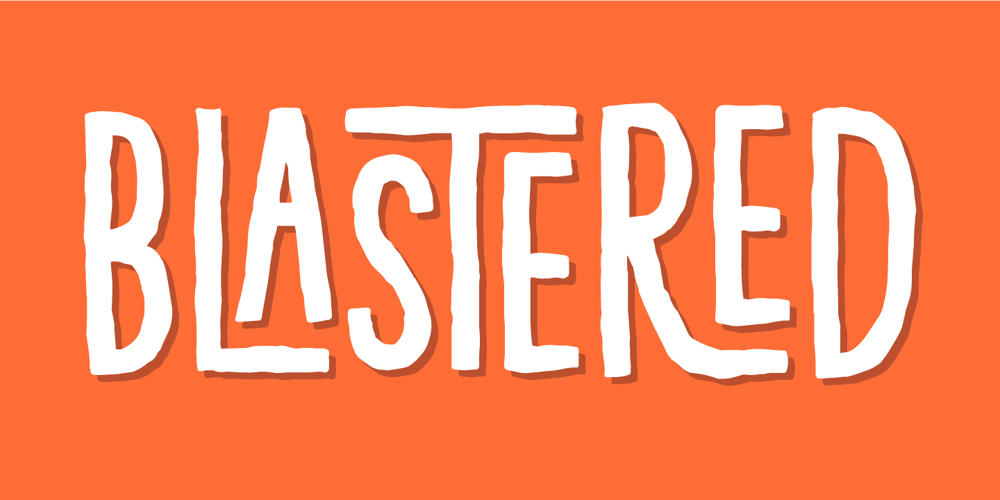
Blastered Font Family was designed by Jakob Fischer and published by PizzaDude.dk. Blastered contains 2 styles and family package options. Blastered was originally inspired by an old horror movie poster – but I find it more laid back and less horrifying…but feel free to use Blastered for your next horror project and use the more than 300 interlocking ligatures! Wow!